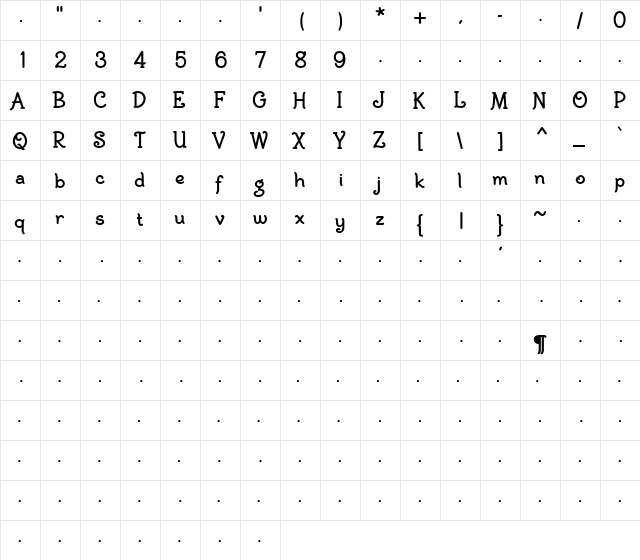
BiracDT Regular
Design Context for BiracDT Typeface
BiracDT takes a measured approach to typography — its balanced proportions and neutral character make it a reliable workhorse for both digital and print work.